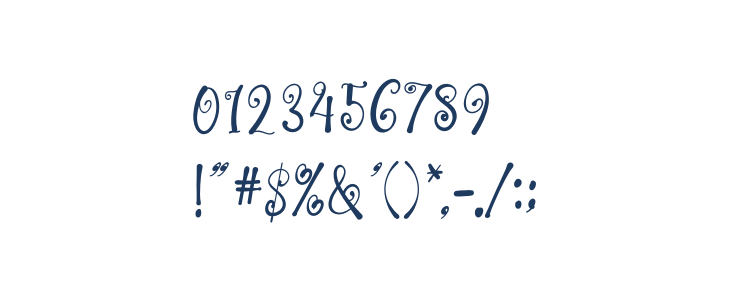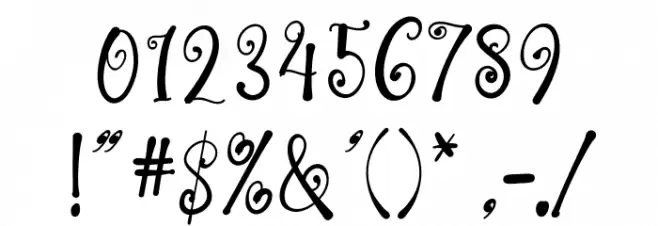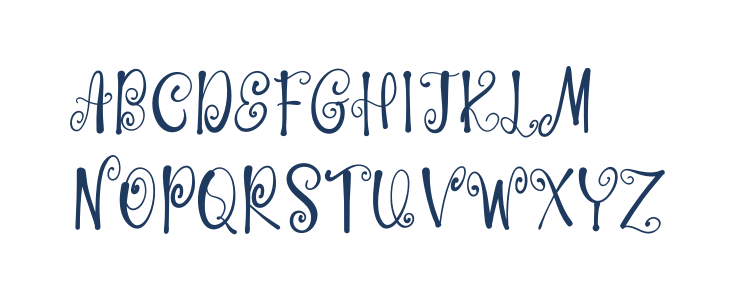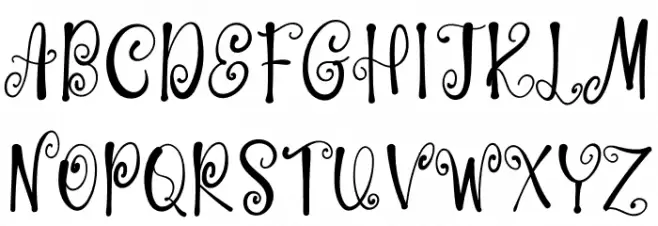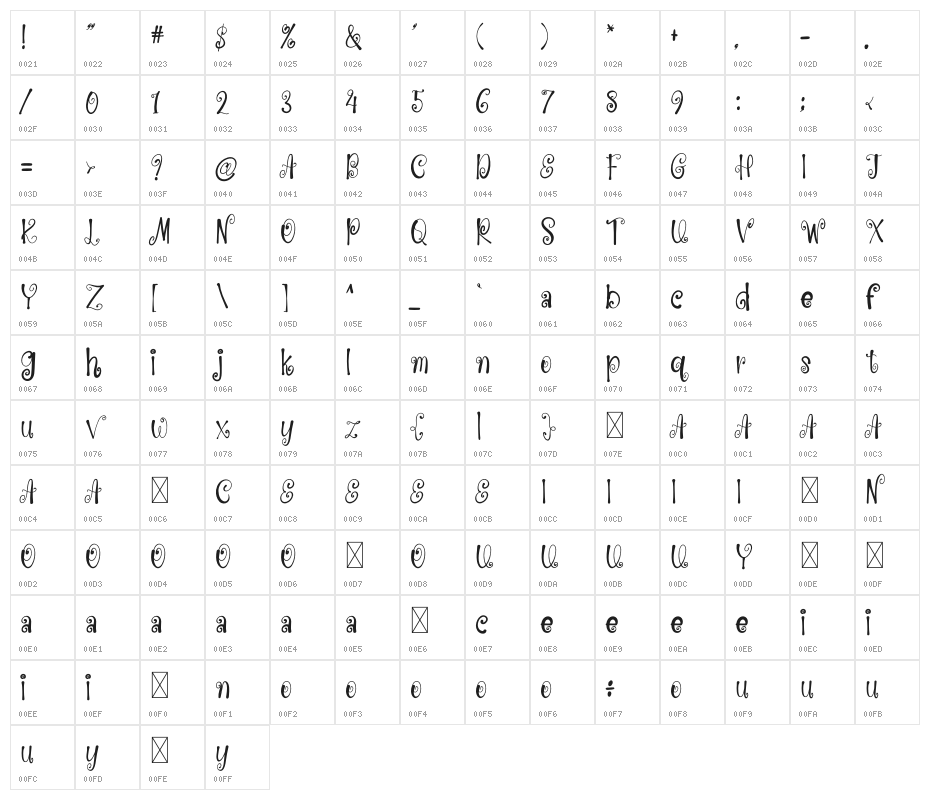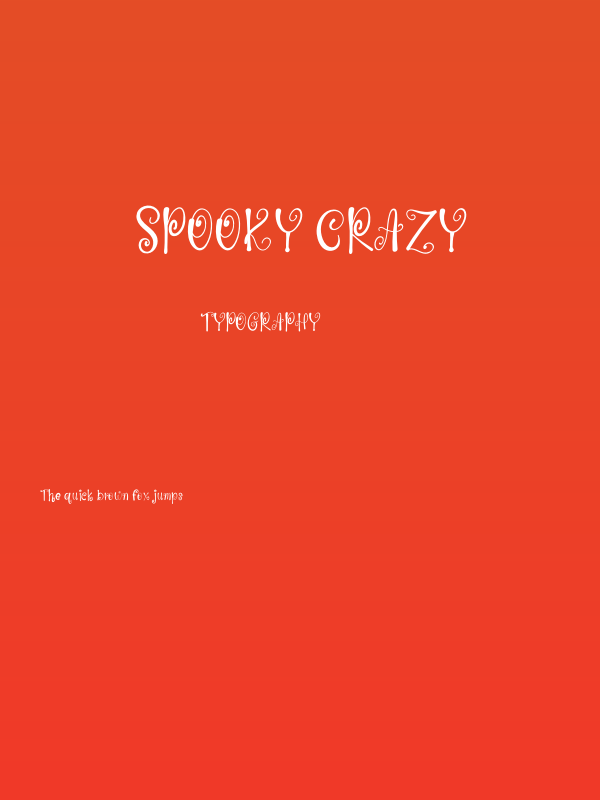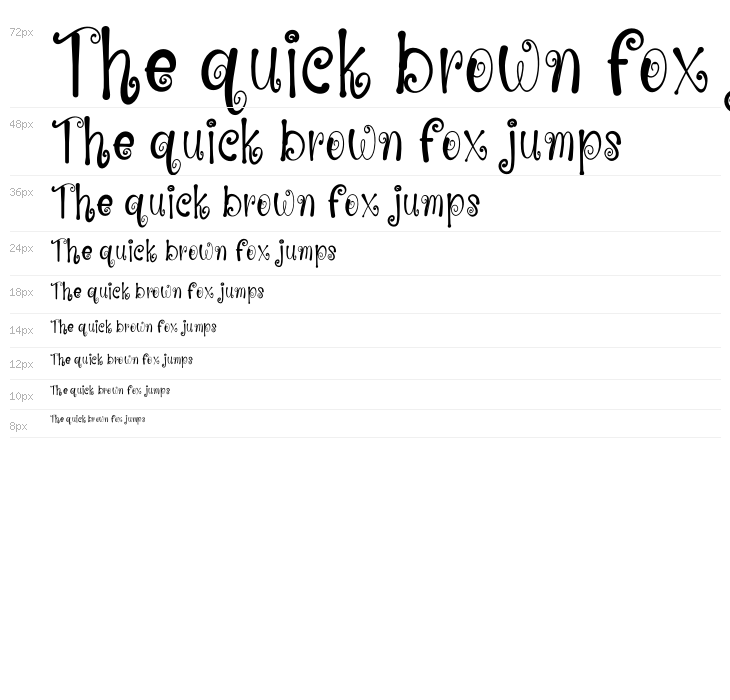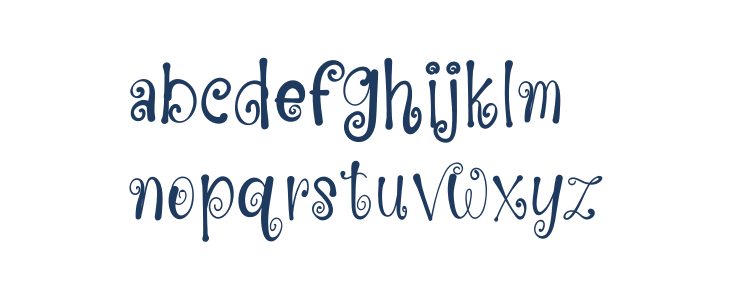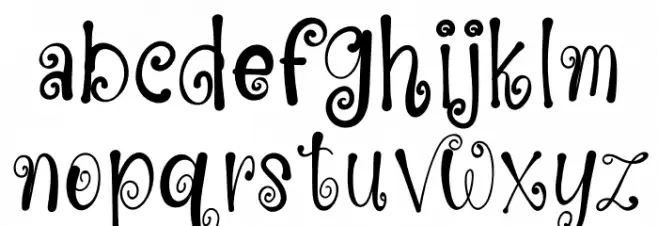
Spooky Crazy Font
Spooky Crazy Description
A whimsical, decorative font with playful curls and swirls on many characters, featuring irregular stroke thickness and quirky, uneven letterforms. The style is lively and slightly eerie, evoking a fun, spooky atmosphere.
| Overall Style | Decorative, Spooky, Whimsical |
| Use Case | Headlines, Posters, Invitations, Themed Graphics |
| Proposed Projects | Halloween invitations, party posters, themed event flyers, children's book titles, greeting cards. |